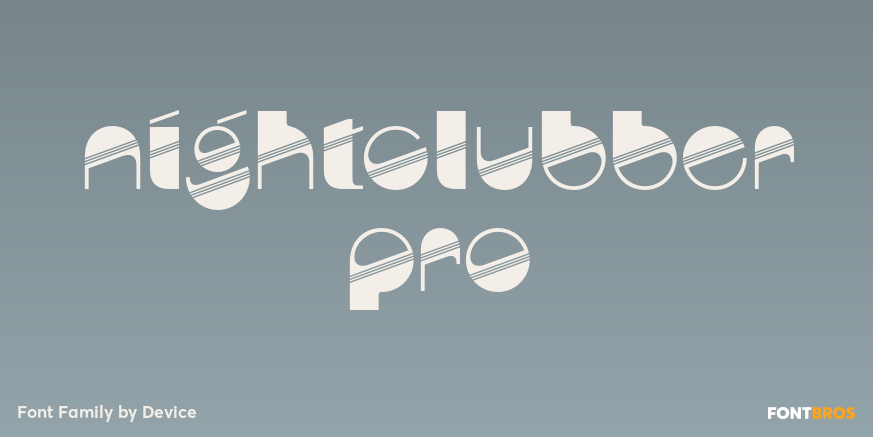
About Nightclubber Pro
The late 70s and early 80s is sometimes considered to be the period when headline typography went off the rails. Growing up in that period, some designers may beg to differ. Many geometric designs were available in dry-transfer and for the typositor,…